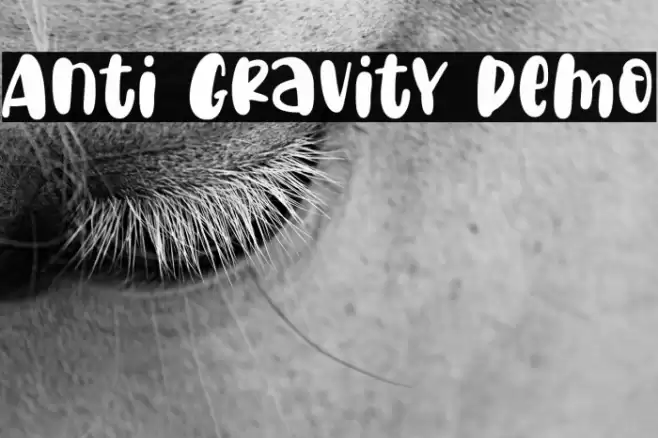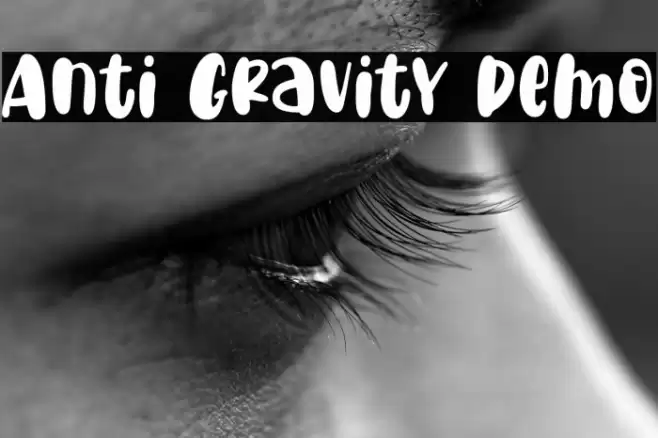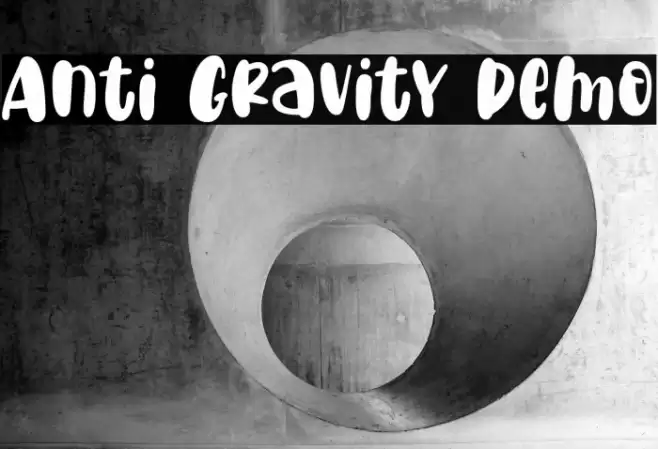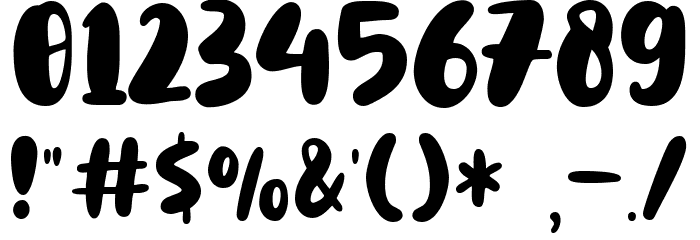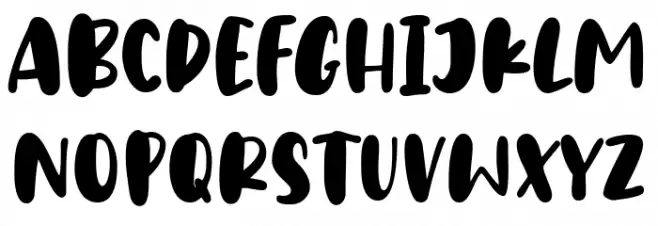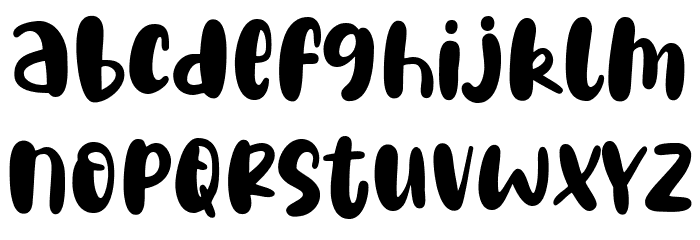
Anti Gravity Demo Font
Anti Gravity Demo Description
This font exhibits a playful and bold handwritten style, characterized by its thick, rounded strokes and smooth curves. The letters are slightly irregular, giving it a casual and friendly appearance. The uppercase and lowercase letters maintain a consistent weight, contributing to its cohesive look. Numbers and special characters are designed with the same playful aesthetic, ensuring uniformity across different uses. The font's style is reminiscent of hand-painted signs, making it ideal for projects that require a personal touch. Its boldness ensures readability while the rounded edges add a touch of warmth and approachability.
A bold, playful handwritten font with rounded strokes and a casual style from Uncategorized fonts.
- Proposed Projects: Ideal for greeting cards, children's books, playful branding, and social media graphics.
- Overall Style: Playful, Casual